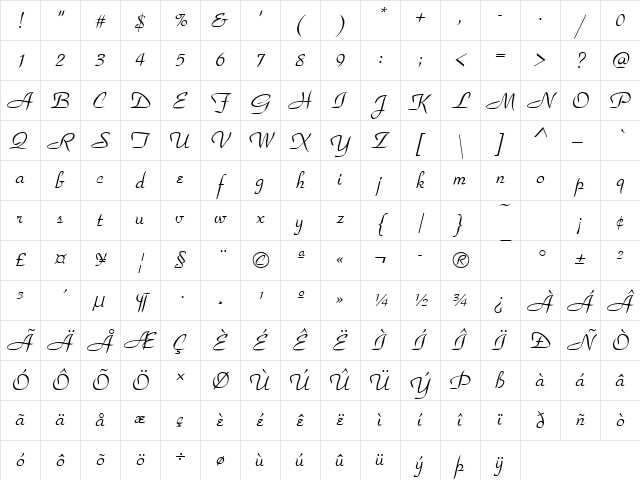
ParkAveD Regular
Complete ParkAveD Regular glyph index. Displaying only characters natively supported by ParkAveD Regular font.
Design Context for ParkAveD
ParkAveD is a composed and adaptable typeface that performs quietly and consistently across a wide range of design contexts.